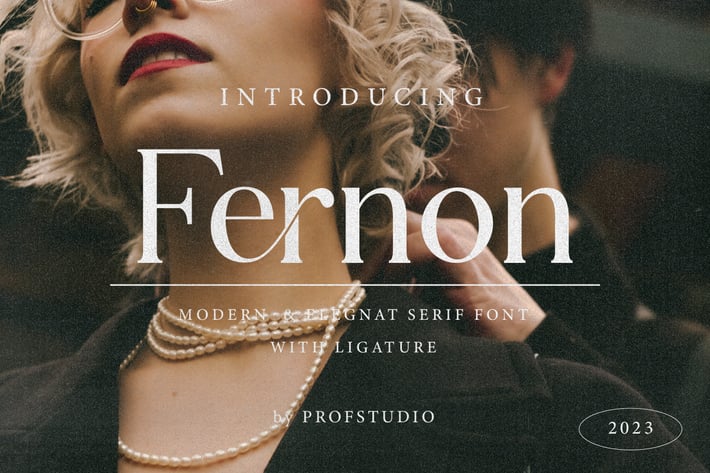
Fernon - Modern Elegant Serif Font
Elevate beauty & fashion with Fernon, a Luxury Modern Elegant Serif font. Graceful curves, timeless allure - Your brand's perfect choice